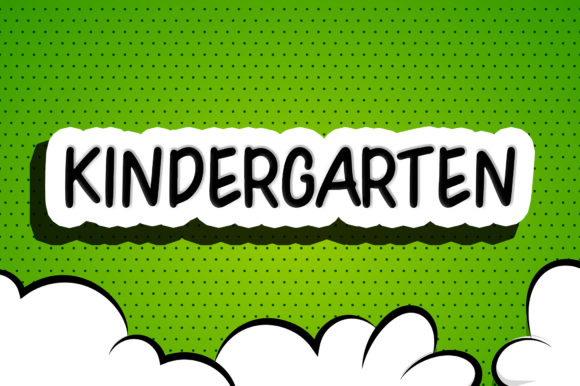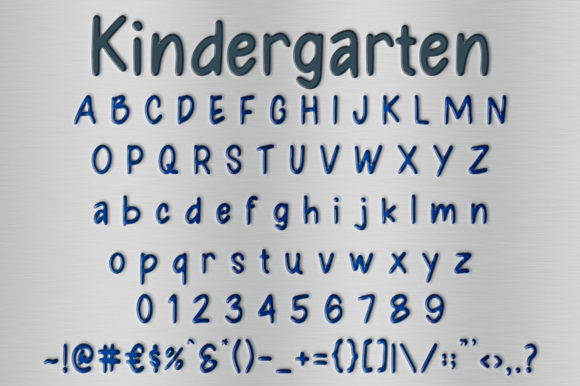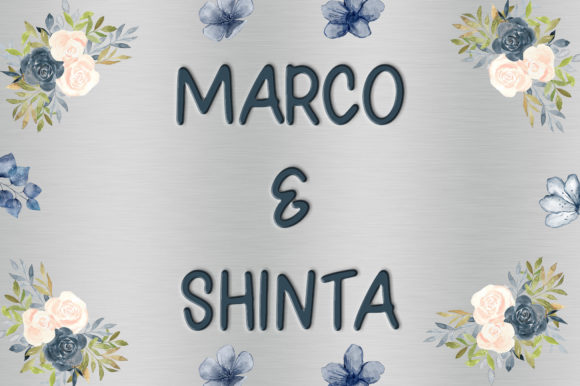
About Kindergarten Font
Kindergarten is a cute and simple lettered handwritten font that can be used for all chalkboard quotes or teaching material! Its authentic look will add a personal and realistic feel to your designs.